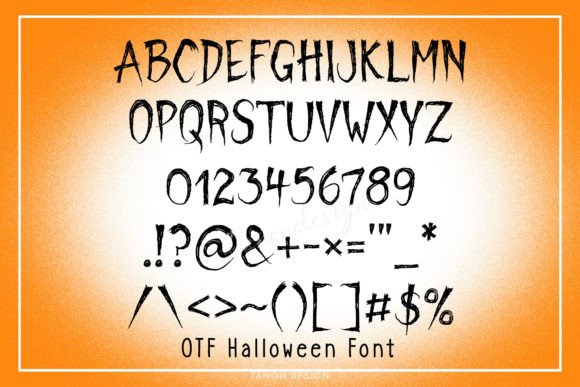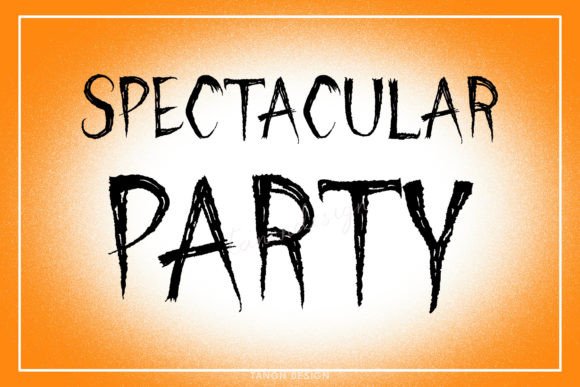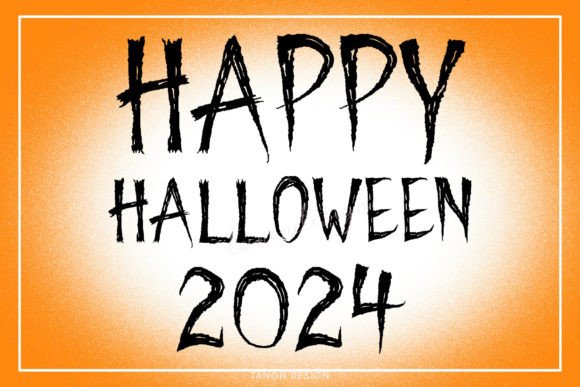
The Perfect Font for a Spine-Chilling Halloween Project
Do you remember the moment when you were working on a design project and suddenly, the perfect font popped into your head? For many designers, this moment is the spark that sets their creativity ablaze. As the spooky season approaches, I’m sure you’re itching to create something that will send shivers down people’s spines. Introducing the “Creepy Spooky Font”, a beautiful Halloween font that will add an eerie touch to all your project designs.
This versatile font is perfect for designers who want to create t-shirt designs, mug designs, digital designs, crafts, cards, and any other projects that scream Halloween. The “Creepy Spooky Font” is a valuable addition to any designer’s toolkit, offering a wide range of creative possibilities that are sure to captivate your audience.
Key Features of “Creepy Spooky Font”
- Font Family: A unique, hand-drawn font designed to evoke a sense of eeriness and spookiness.
- Unique Characteristics: Distinctive, handwritten letterforms with irregular shapes, uneven spacing, and subtle texture, creating an unsettling atmosphere.
Designer Review: Creepy Spooky Font
I recently had the chance to work with the “Creepy Spooky Font” and I must say it’s a unique choice for those who want to make a statement. Here are my honest thoughts:
- Uniqueness: The font is certainly one-of-a-kind, perfect for designers who want to stand out from the crowd.
- Emotional Connection: The font’s creepy and spooky vibe can evoke strong emotions, making it great for horror-themed designs or projects that require a sense of eeriness.
- Expressiveness: The font’s irregular shapes and letterforms make it highly expressive, allowing designers to add a touch of personality to their work.
- Legibility: The font’s unique design can make it difficult to read, especially in smaller sizes or for longer blocks of text.
- Versatility: The font’s spooky theme limits its use to specific design projects, making it less versatile than other fonts.
- Customization: The font’s irregular shapes can make it challenging to customize or modify, limiting its adaptability to different design styles.
Overall, the “Creepy Spooky Font” is a bold and eye-catching choice that’s perfect for designers who want to add a touch of eeriness to their work. However, its limitations in terms of legibility, versatility, and customization may make it less suitable for everyday use.
The “Creepy Spooky Font” is ideal for creating spooky or Halloween-themed designs, such as invitations, posters, or social media graphics.
For maximum effect, pair the font with dark colors, creepy images, and eerie lighting effects.